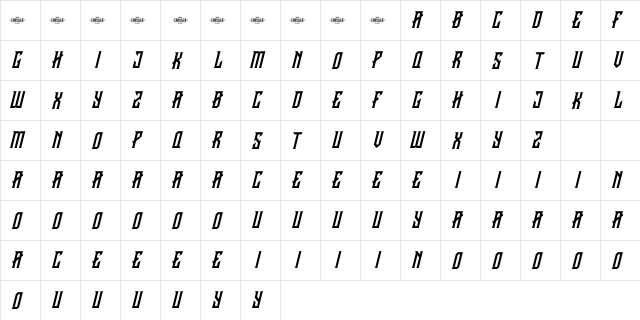
CRAWLER Italic Demo Font Preview
CRAWLER Italic Demo
CRAWLER Italic Demo Font Details
Design Context for CRAWLER Typeface
CRAWLER is a composed and adaptable typeface that performs quietly and consistently across a wide range of design contexts. The dynamic lean of this cut emphasises speed and emphasis in any layout.